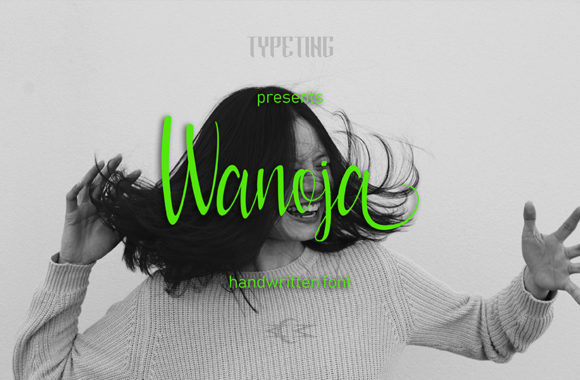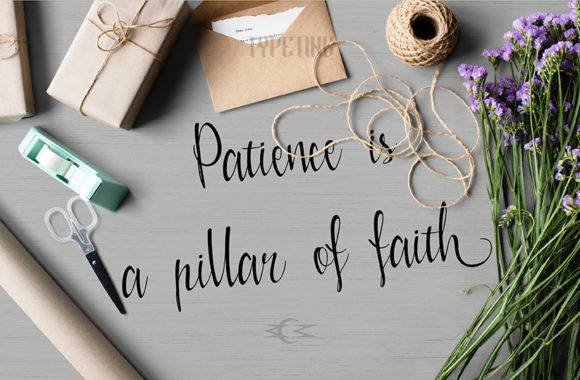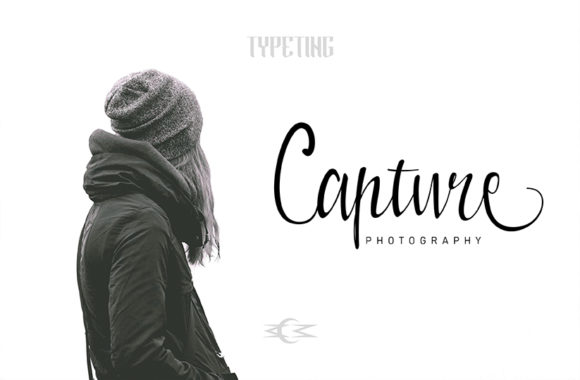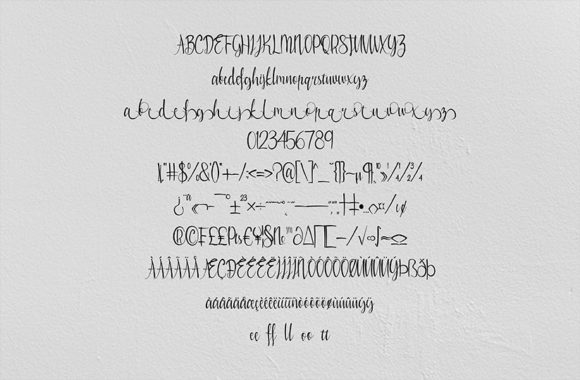
HomeScript FontsWanoja Font Script Fonts Wanoja Font FacebookXPinterestWhatsApp Wanoja Font Poster 2 Wanoja Font Poster 3 Wanoja Font Poster 4 About Wanoja Font Wanoja is a beautiful handwritten script that adds a touch of authenticity to any design. DOWNLOAD NOW People also explored Hello Sunflowers Font Spons Blocky Font Closer Font Original Sin Font Natural Beauty Duo Font Escalope Font Shutterland Font Phoenix Gaming Font Lovitha Font 275 0 TagsWanoja Font Previous articleEastchaft FontNext articleKetan Font LEAVE A REPLY Cancel reply Comment: Please enter your comment! Name:* Please enter your name here Email:* You have entered an incorrect email address! Please enter your email address here Website: Save my name, email, and website in this browser for the next time I comment. Personal Use Free Fillguy Font Personal Use Free Read more about this font Triangular Curves Personal Use Free Read more about this font Single Sleeve Personal Use Free Read more about this font Grillin Personal Use Free Read more about this font BLOG Top 10 Handwritten Fonts That Elevate Your Designs Top 10 Handwritten Fonts That Will Elevate Your Designs Handwritten fonts bring a warm, personal touch to every creative project. Whether you're designing logos, invitations,... How to Install and Use Fonts on Windows, macOS, and Web Projects Modern Sans-Serif Fonts That Brands Love in 2025 5 Fonts That Will Dominate Design Trends in 2026